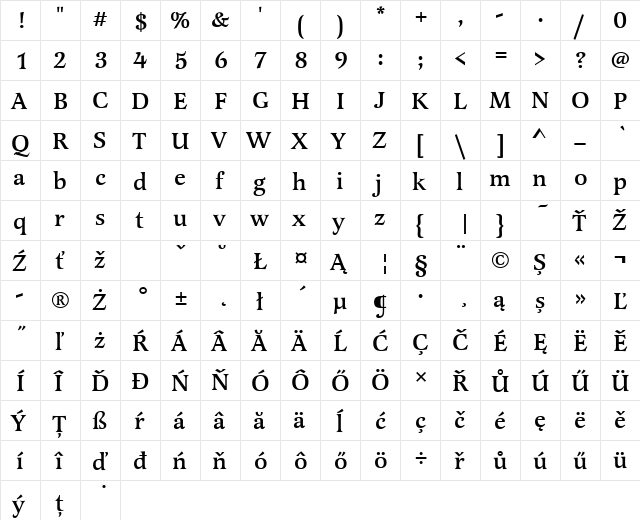
LatienneTEEMed Regular
Design Context for LatienneTEEMed Typeface
LatienneTEEMed offers clean, dependable letterforms without strong stylistic allegiance, making it a practical choice for designers who need flexibility.